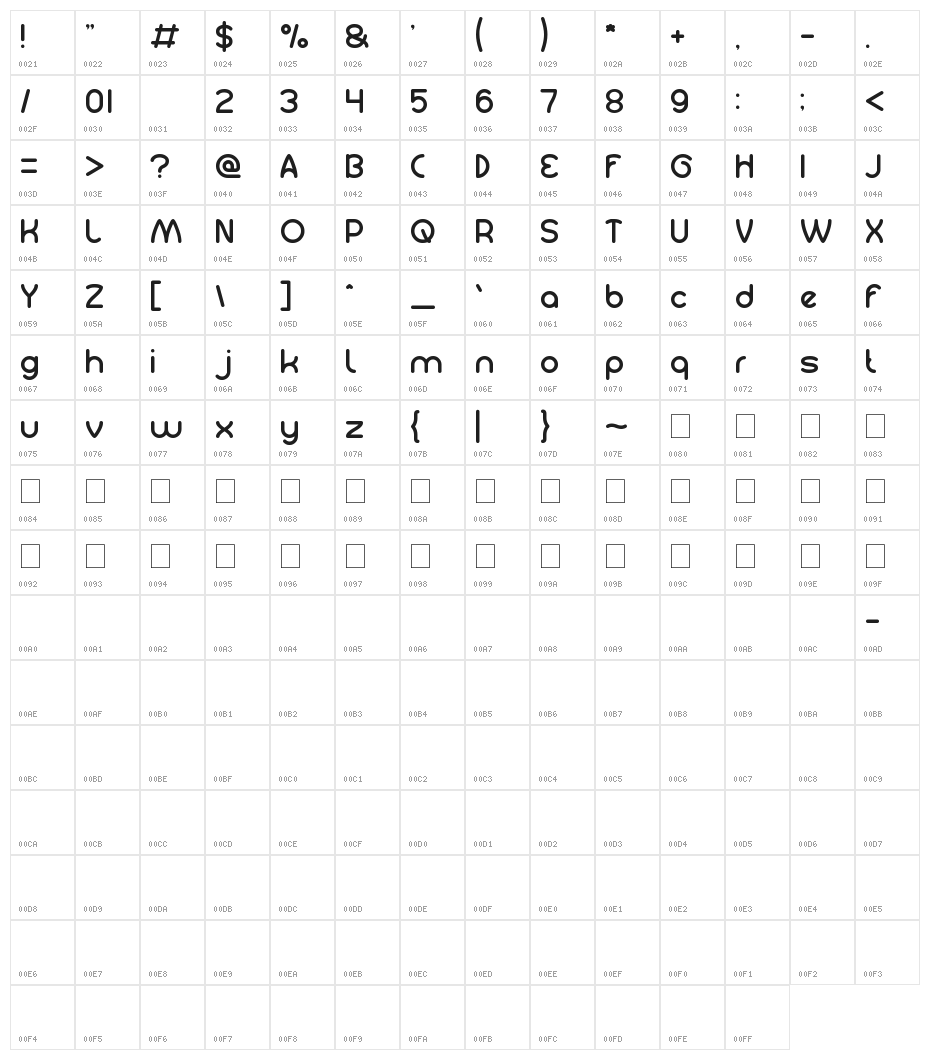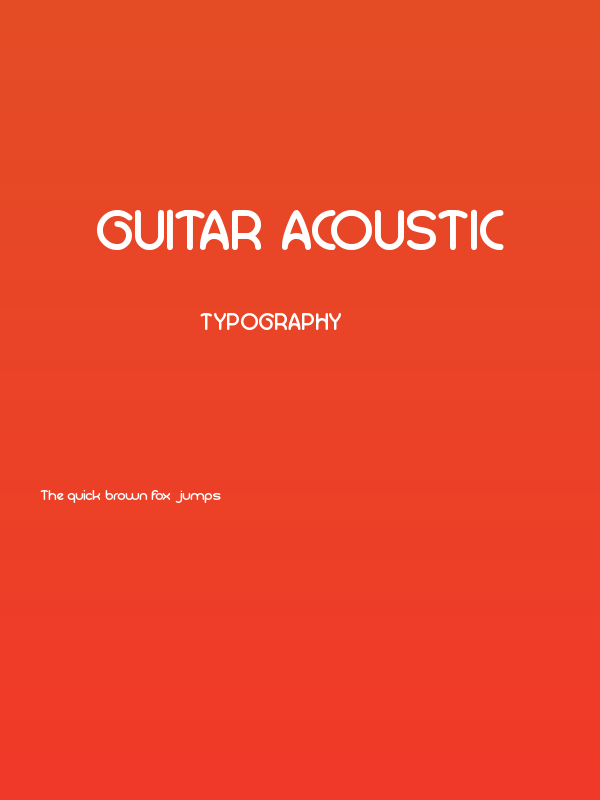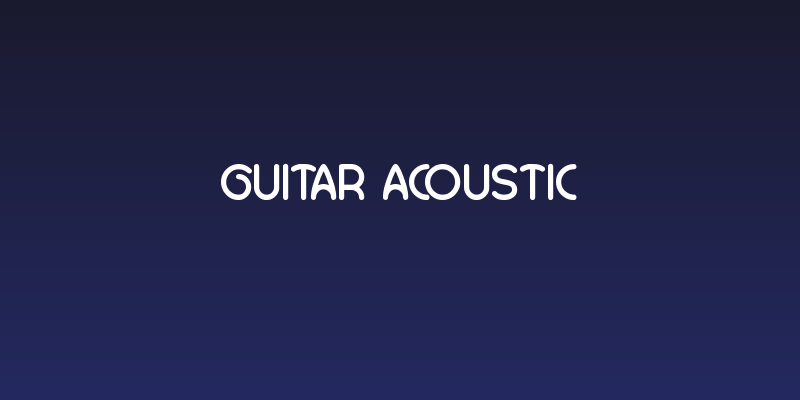
GUITAR ACOUSTIC Font
GUITAR ACOUSTIC Description
This font features a playful and rounded design, characterized by its smooth curves and consistent stroke width. The letters are bold and have a friendly, approachable appearance, making them suitable for a variety of creative projects. The uppercase and lowercase letters maintain a uniform style, with rounded edges that give the font a soft, modern look. The numbers and special characters follow the same design principles, ensuring a cohesive appearance across all elements. This font is versatile and can be used in both digital and print media, offering a contemporary feel that is both stylish and functional.
| Use Case | Logos, Headlines, Branding |
| Proposed Projects | Ideal for children's books, playful branding, product packaging, and modern web design. |